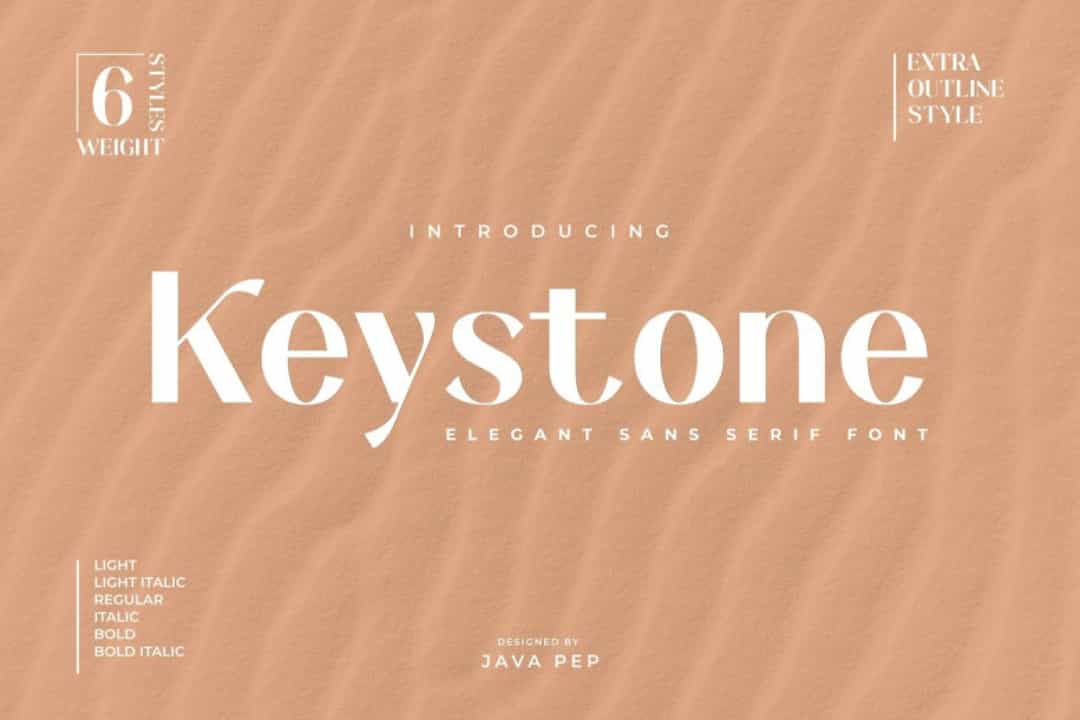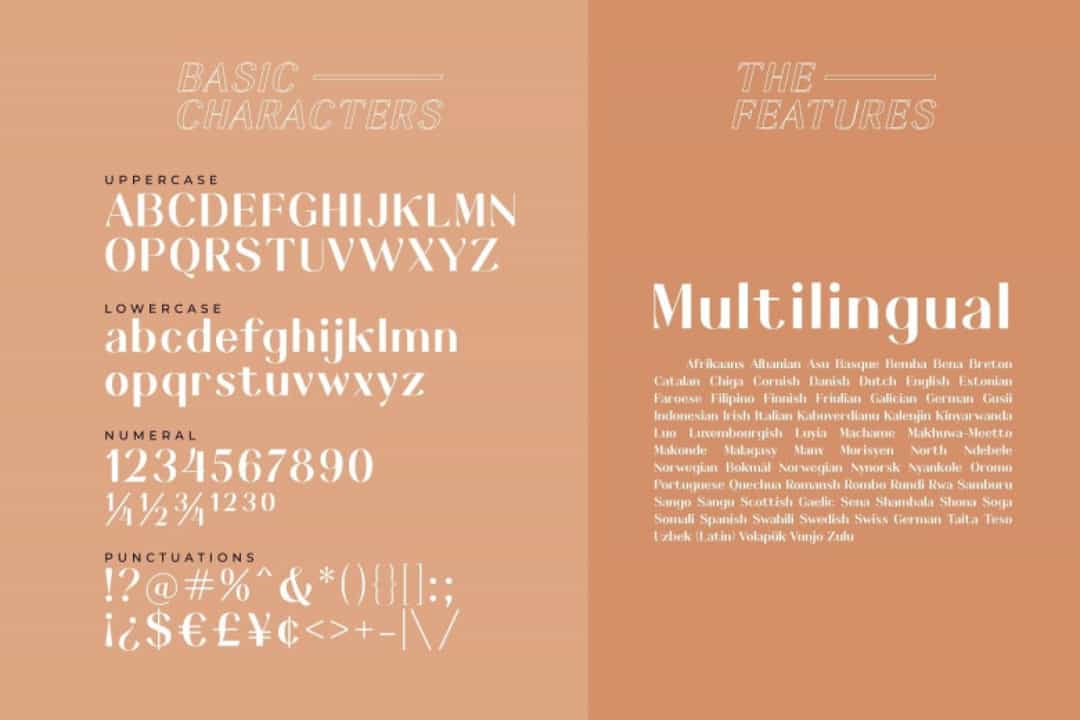
Keystone is an elegant sans serif font family with six weight and two outline styles for maximum versatility, plus over 20 different languages available for use. Keystone font can also be used to highlight text for display such as magazine advertising, cover books branding logotype fashion quotes web or blog headers photos invitations posters postcards etc.